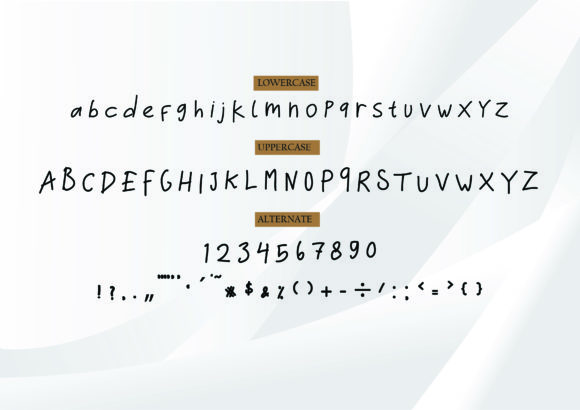
Cemara Font
About Cemara Font
Cemara is a cute and quirky lettered handwritten font that can be used for all chalkboard quotes or teaching material! Its authentic look will add a personal and realistic feel to your designs.